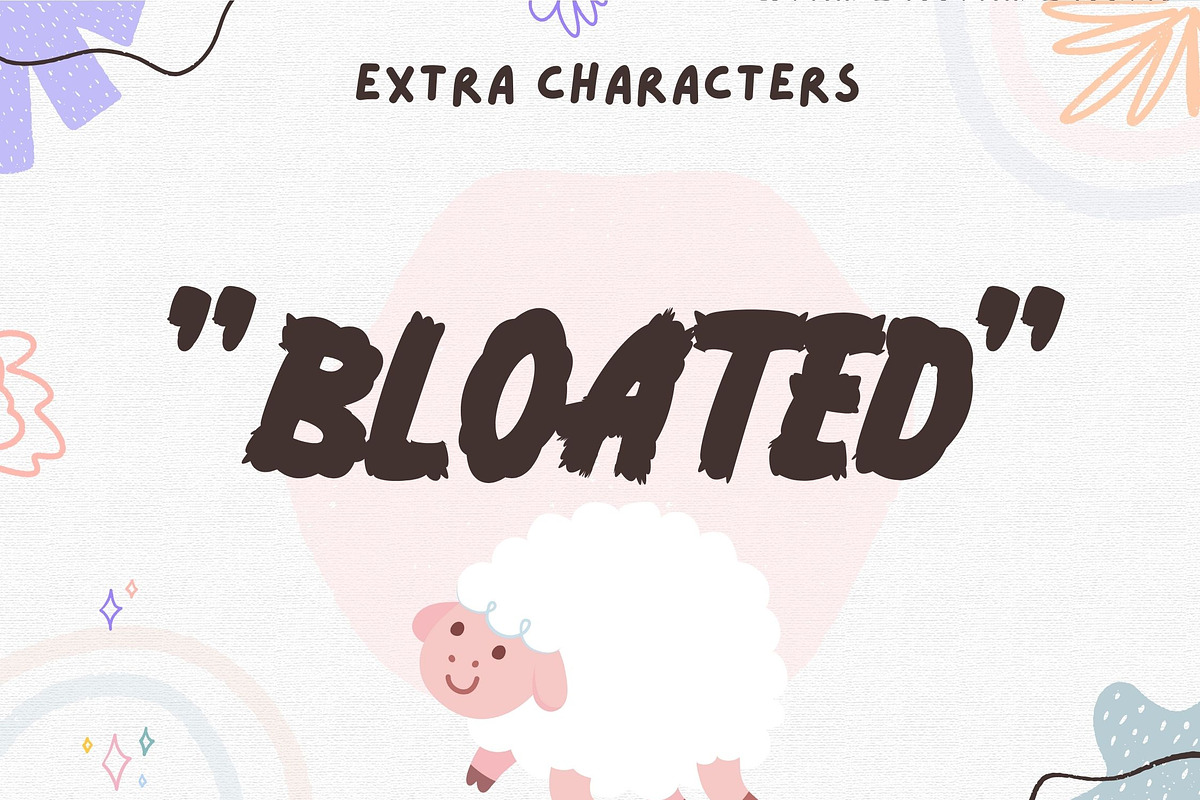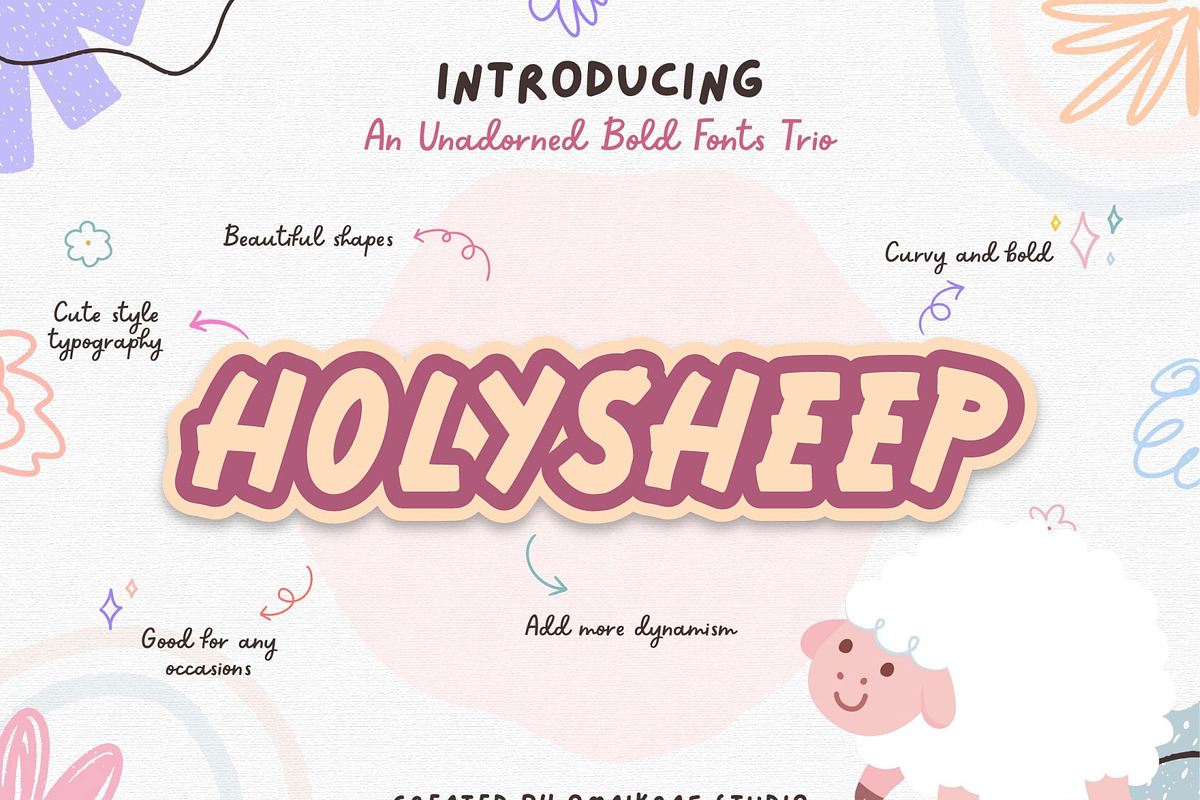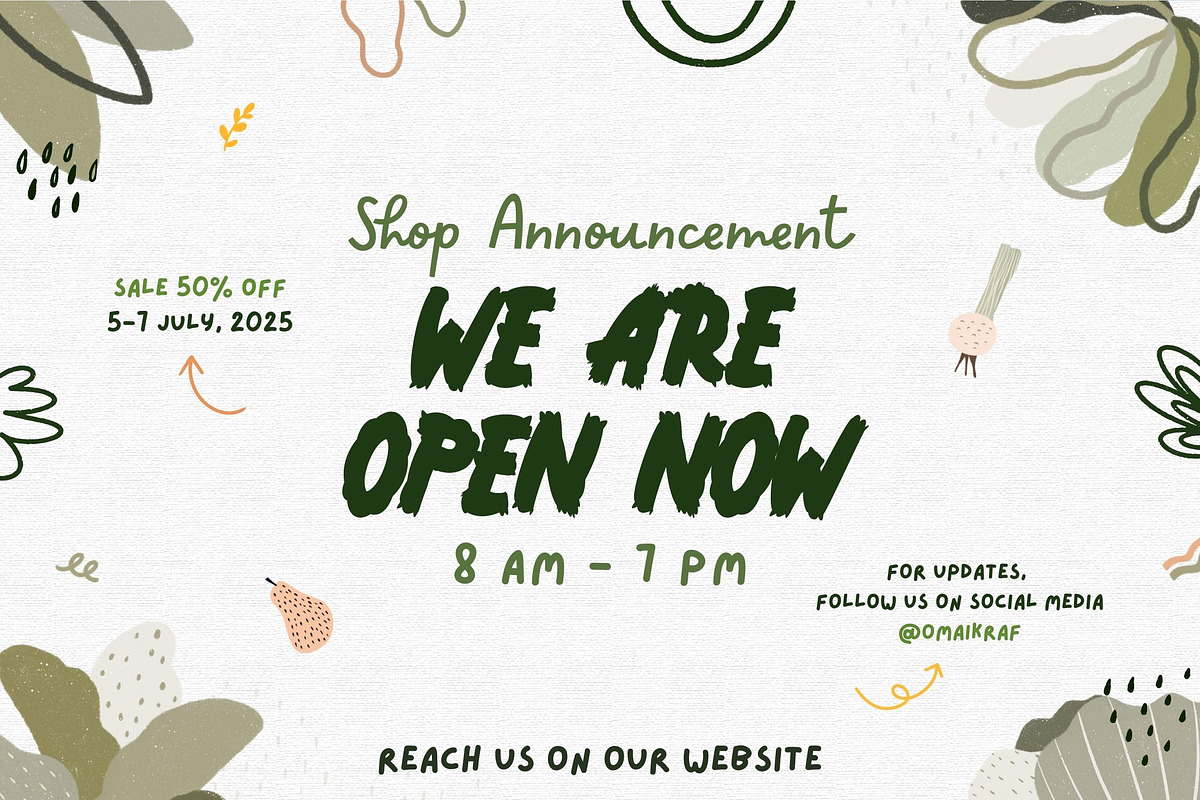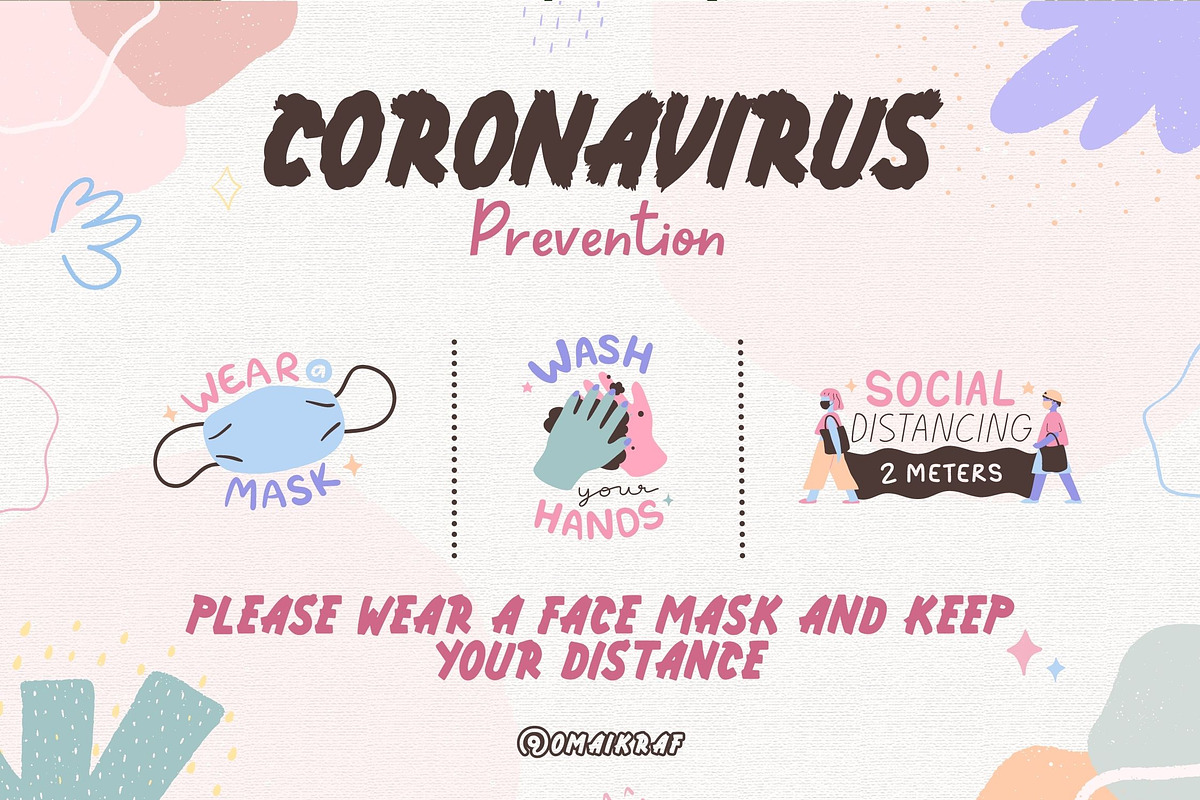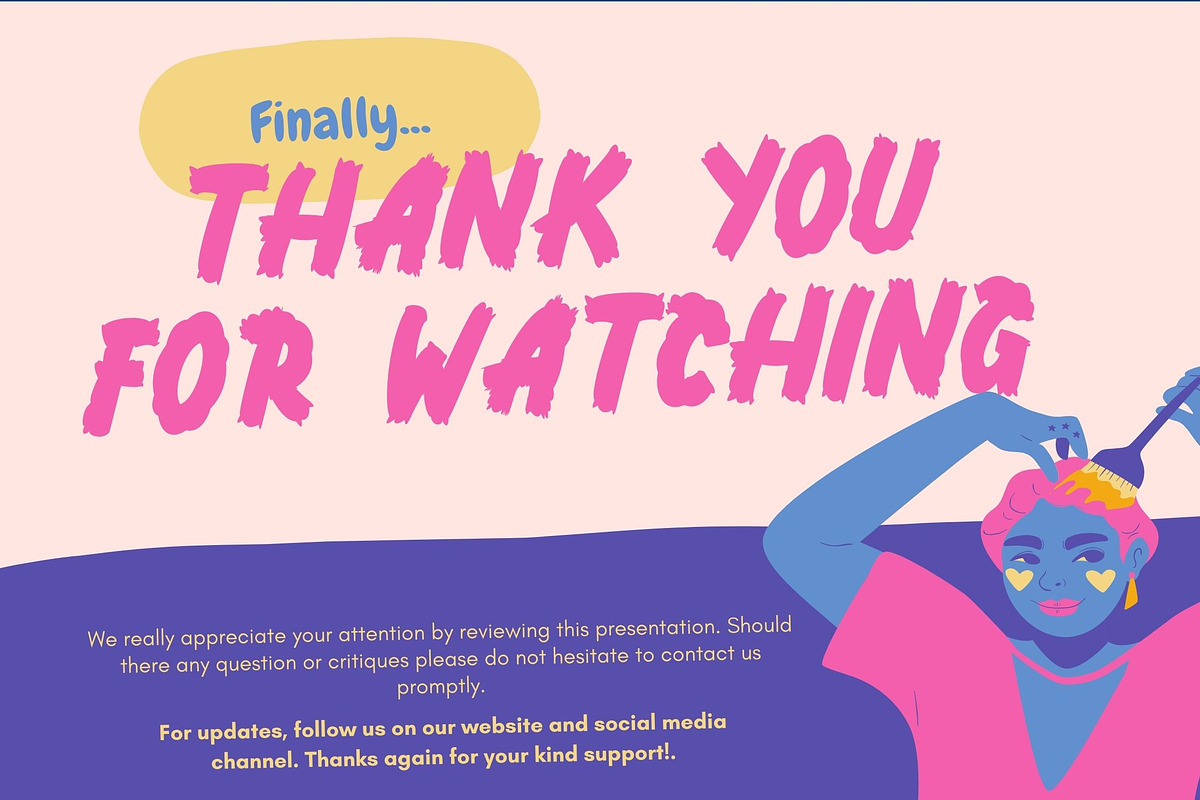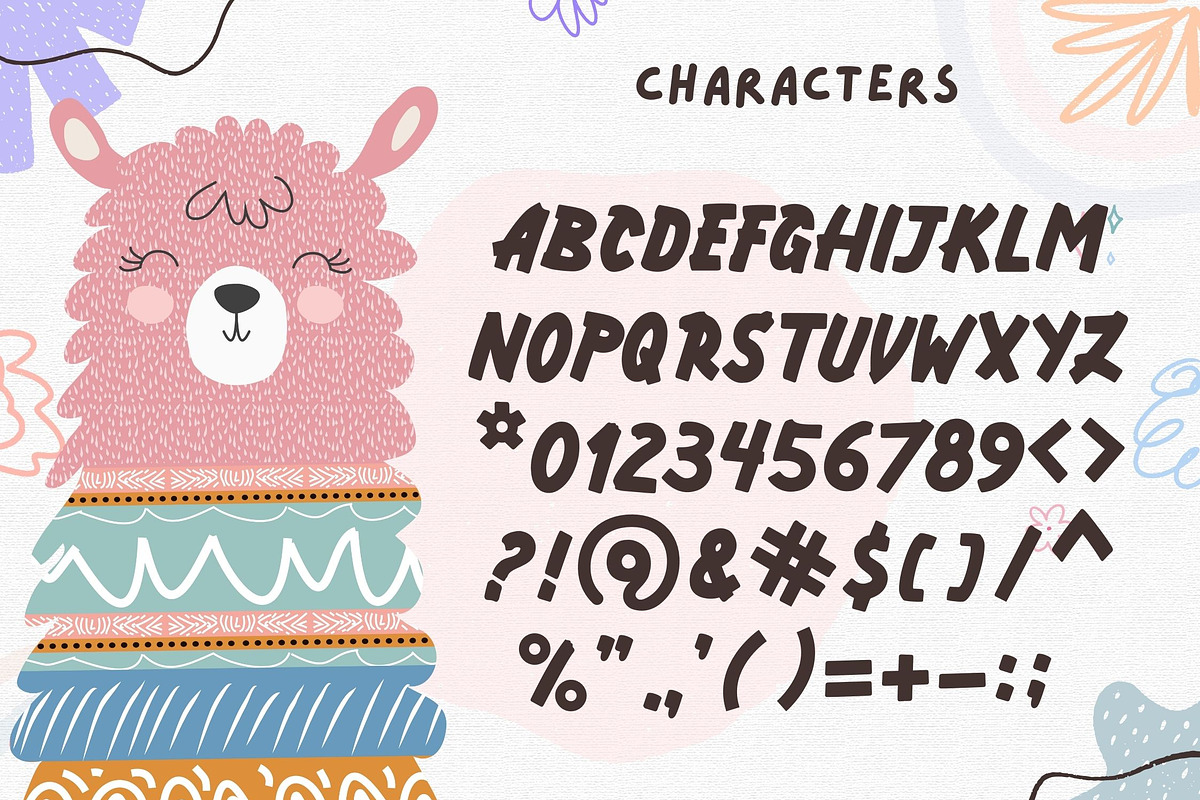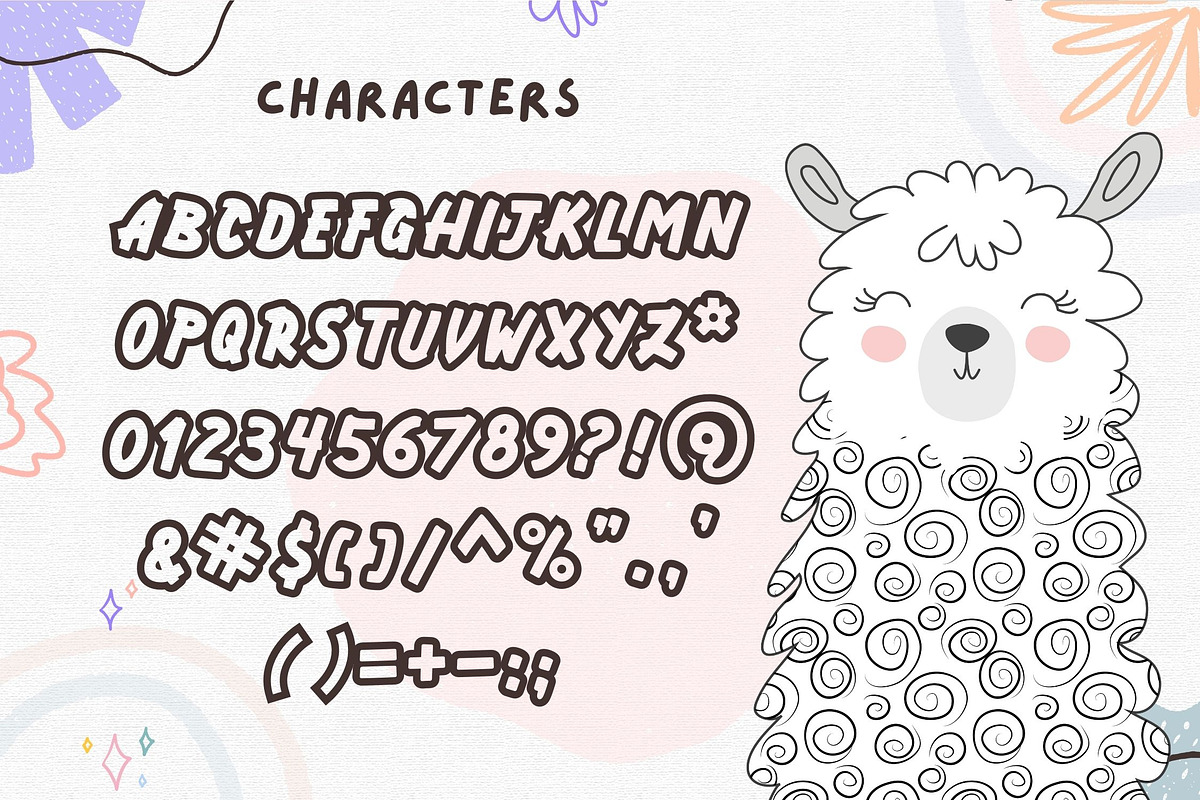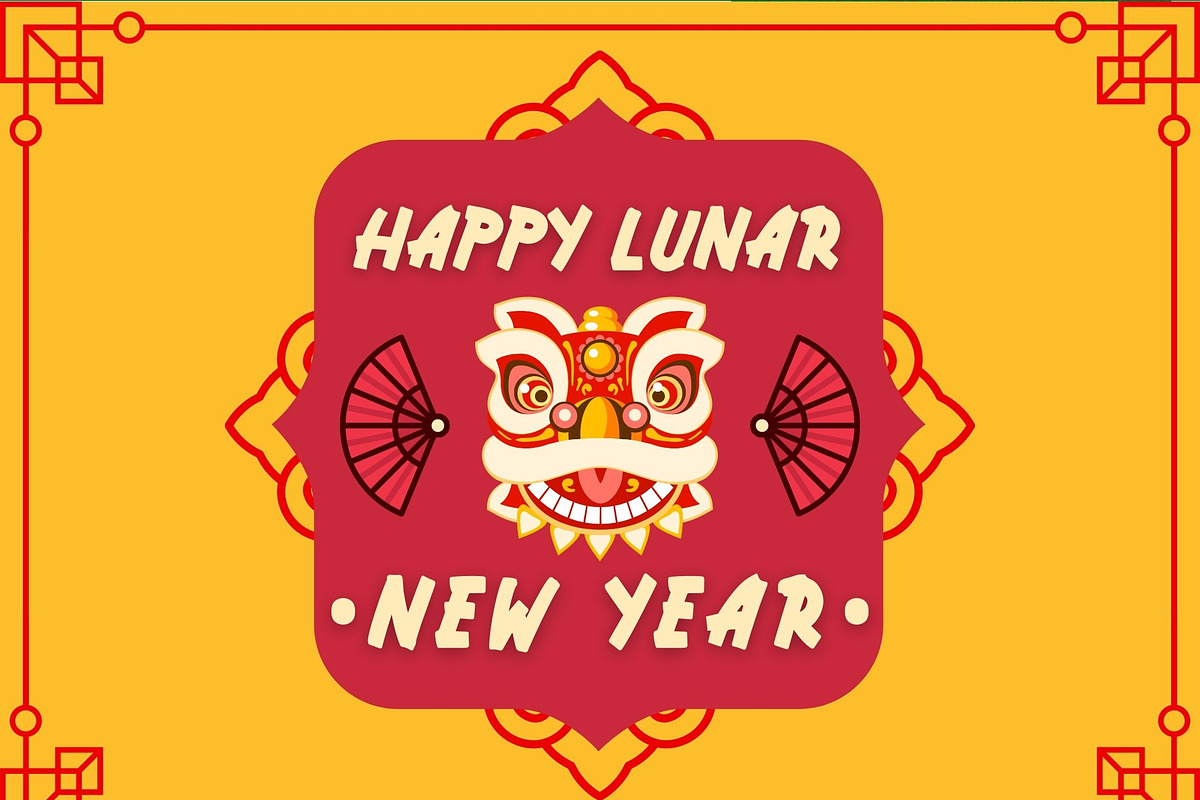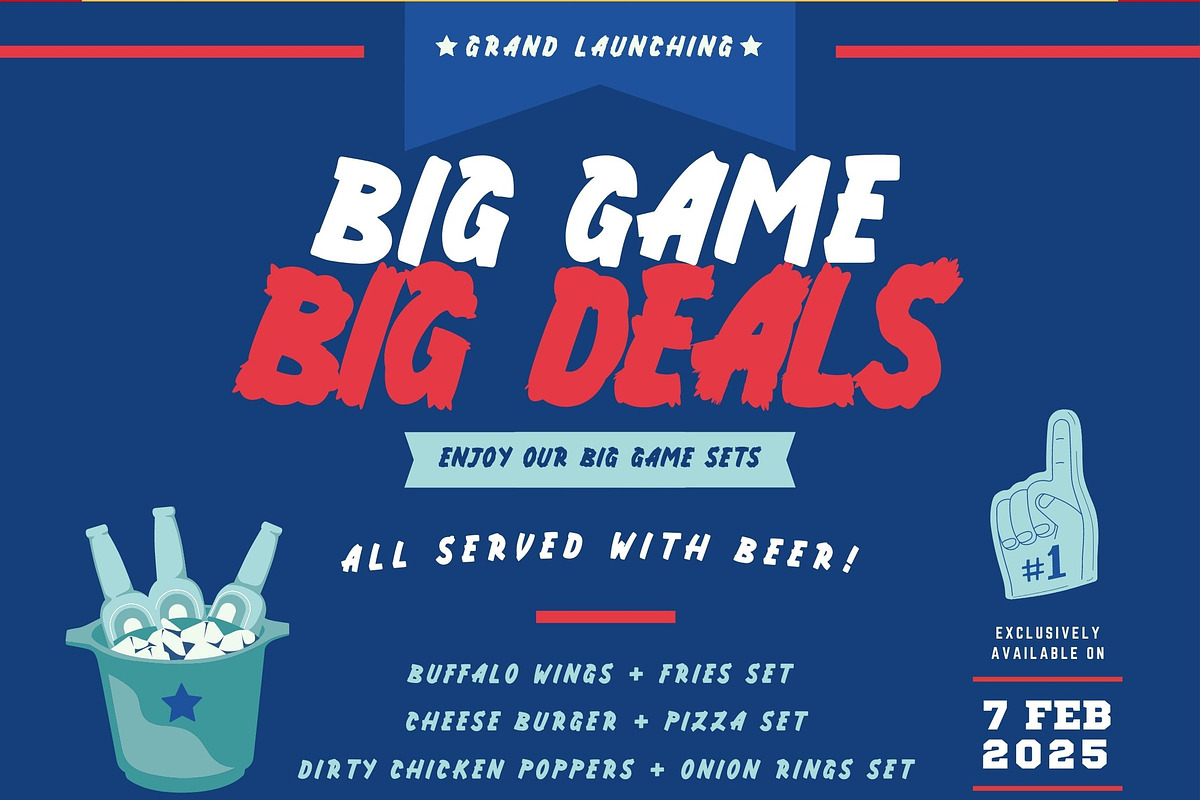
Holysheep | An Unadorned Bold Fonts
Holysheep is a set of fonts that consists of 3 different styles: – Holysheep Regular – Holysheep Outline – Holysheep Bloated
These fonts are suitable for most occasion and any projects such as posters, cards, invitations, flyers, tittle heads, and many more!.